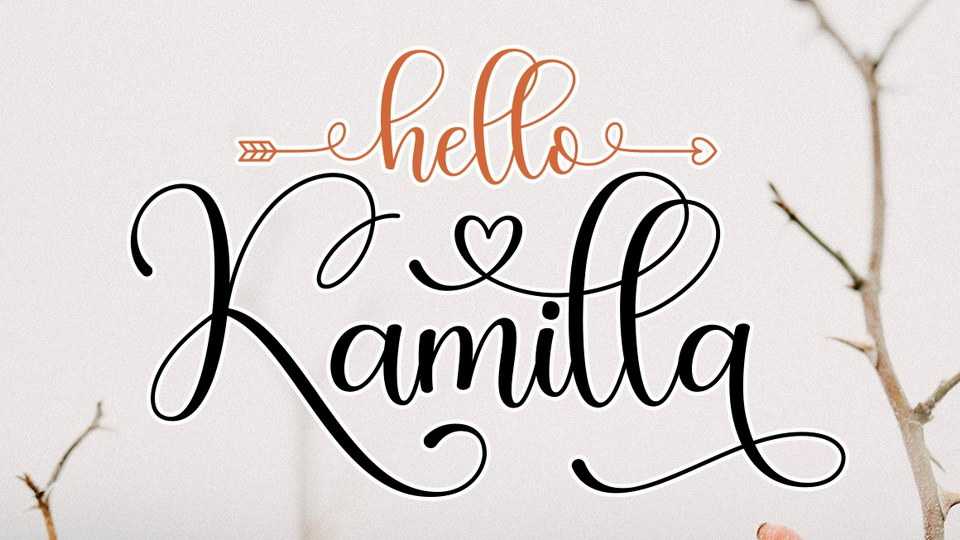
Download Hello Kamilla font, a charming modern calligraphy script with smooth handwritten flow. Hello Kamilla is perfect for logos, wedding stationery, cards, gift designs, photography, watermark, product packaging and handwritten quotes.